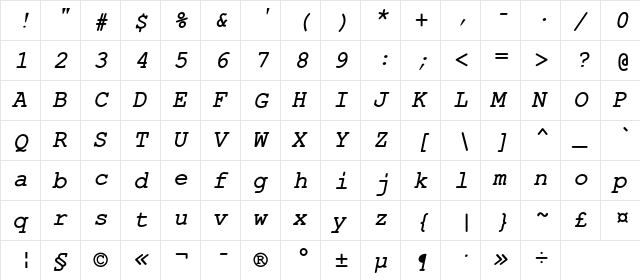
APCCourier-BoldOblique Regular Font Preview
Design Context for APCCourier-BoldOblique Typeface
APCCourier-BoldOblique brings the precise, column-aligned rhythm of monospaced typography to designs that value technical clarity and systematic order. Its italic angle brings a sense of urgency and motion to the letterforms. Its bold stroke weight gives it real presence on the page.
Pro Tip: Pair APCCourier-BoldOblique with a proportional sans for UI contexts where code-style labels and regular body copy need to coexist.